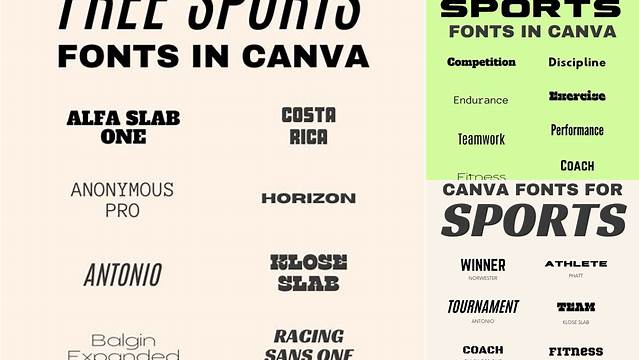
Best Canva Fonts For Sports Designs
Hey sports fanatics, are you ready to amp up your game with some killer designs? Whether you're crafting social media posts, flyers for your local team, or even merchandise, choosing the right fonts can make all the difference. Today, we're diving deep into the world of fonts on Canva for sports, exploring the best options to help you create eye-catching visuals that scream victory! Let's get started!
1. Top Canva Fonts for Sports Logos: Elevate Your Brand
Guys, when it comes to sports logos, your font choice is super important! It's like the handshake of your brand. It needs to be memorable and perfectly capture the spirit of your team or organization. Canva has a bunch of fantastic font options that can totally transform your logo game. Think about the vibe you're going for – are you aiming for something modern and sleek, or something classic and bold? For a modern look, consider fonts like 'Bebas Neue' or 'Montserrat'. These fonts are clean, easy to read, and give off a contemporary feel. They're perfect for teams wanting a professional and polished image. If you're leaning towards a more traditional or rugged style, check out 'Impact' or 'Oswald'. These fonts are strong and assertive, really making your logo pop. They work great for sports like football, basketball, and hockey. Remember, the key is to match the font with the personality of your team. A sleek font might not fit a team with a tough, gritty reputation. The right font helps you tell your team's story, so take your time and test out different options until you find the perfect fit. Don't be afraid to experiment with different weights and styles of the same font to fine-tune the look. And hey, keep in mind how the font will look at different sizes – your logo needs to be clear whether it's on a tiny social media avatar or a massive banner. Good luck!
2. Canva Fonts for Sports Teams: Finding the Perfect Match
Choosing the right fonts for your sports team's materials can be a fun challenge, right? When you're working with Canva, the possibilities are pretty much endless. You'll find fonts that bring the energy of the game to life, from the roar of the crowd to the thrill of victory! For a classic, sporty feel, you can't go wrong with fonts like 'College' or 'Varsity'. These fonts are specifically designed to evoke the spirit of collegiate sports, making them perfect for team jerseys, posters, and event announcements. They have that timeless, athletic vibe that everyone loves. If you're looking for something a bit more modern, consider fonts like 'Roboto' or 'Lato'. These are clean, versatile fonts that are super easy to read, even from a distance. This is crucial for things like scoreboards and team names on jerseys. To give your team a unique identity, play around with fonts that have distinct character. Think about fonts with a bold weight, or a slightly angled design. These can add a sense of movement and excitement to your designs. And hey, don't forget the importance of pairing fonts! Sometimes the best designs use a combination of two different fonts. One font for the main title or team name and another for the supporting text. This helps you create visual interest and hierarchy. When choosing the perfect font, remember to think about your team's color scheme. The font should stand out and be easy to read against the background colors you're using. Have fun with it and enjoy the creative process!
3. Best Canva Fonts for Sports Social Media Posts: Grab Attention
Alright, so you want your social media posts to be absolute slam dunks? You need fonts that grab attention and make your content shine! Canva has plenty of fonts that are perfect for making your sports-related posts pop. For headlines, go with something bold and eye-catching. Fonts like 'Anton' or 'Bebas Neue' are fantastic choices. They're strong, readable, and make your headlines stand out in the feed. They're great for announcements, game day previews, and victory celebrations. To create a sense of energy and movement, consider fonts with a slight slant or a dynamic feel. Fonts like 'Impact' or 'BankGothic' can add a sense of urgency and excitement. They are perfect for short, punchy captions and quotes that get your audience pumped. For the body of your posts, choose a font that's easy to read and doesn't distract from your message. 'Roboto' and 'Open Sans' are great options. They're clean, legible, and won't clutter your post. Try to experiment with font sizes to create a clear visual hierarchy. Use a larger font for headlines and a smaller font for the body text. This way, you can guide your audience's eyes and make sure they read the important info first. Don't forget to consider the overall look and feel of your social media accounts. Your fonts should align with your brand's style. If you want to give your content a consistent look, save your favorite fonts in your Canva brand kit so you can easily access them. Have fun and let your creativity run wild!
4. Canva Font Pairings for Sports Designs: Achieving Harmony
Okay, let's talk about creating visual harmony with font pairings. It's like choosing the perfect team-up for a dynamic duo! The goal is to combine different fonts that complement each other, creating a design that's both visually appealing and easy to read. A classic approach is to pair a strong, bold font with a simple, clean font. Think of it like a headline and a body text combo. You can use a font like 'Impact' or 'Oswald' for your headings and a font like 'Roboto' or 'Lato' for the body of your text. This creates contrast and makes your text easy to digest. Another great pairing involves using two fonts that are different but share a similar style. For example, you could choose two sans-serif fonts with slightly different weights or characteristics. This creates a cohesive design that doesn't feel chaotic. When you're making font pairings, make sure to test them out with a variety of content. See how they look with different headlines, body text, and captions. Also, consider the overall mood you're trying to create. A bold font paired with a script font can add a sense of playfulness, while a classic serif font paired with a clean sans-serif font can give off a professional feel. Lastly, remember to ensure your font pairings are easy to read. The goal is always to make your message clear, so choose fonts that enhance your content and make it easy for your audience to understand.
5. Canva Fonts for Sports Posters: Design Like a Pro
Time to get your poster design skills in tip-top shape! When designing posters for sports events, you want fonts that not only grab attention but also clearly convey important information. Make sure to go with fonts that are easy to read from a distance. Fonts like 'Oswald' or 'Bebas Neue' are great because they're bold, clear, and have great readability. For headlines, use a font that stands out. Think about fonts that are strong and impactful, like 'Impact'. You can also get creative and use fonts that reflect the sport itself. For example, for a football poster, you might use a font that feels rugged and powerful. For the body text, use a font that's easy to read, such as 'Roboto' or 'Open Sans'. Make sure the font size is appropriate for the distance viewers will be standing from the poster. Size matters! Also, remember to consider the poster's layout. A well-designed poster uses font pairings to create visual interest. Try using a bold font for your headlines and a cleaner font for the body of the text. This helps create a clear hierarchy and guides the viewer's eye. And hey, remember that your fonts must complement your team's colors and the overall design of your poster. Be consistent with your font choices. Save your favorite fonts in your Canva brand kit to make the design process even faster.
6. Canva Font Styles: Understanding Weights and Variations
Let's talk about font styles and how they can totally transform your sports designs! When we say font styles, we're talking about the different variations of the same font. These include things like font weights (bold, regular, light) and font styles (italic, condensed, expanded). The coolest thing is, using these different styles can help you emphasize key information and create visual interest in your designs. Font weights can make a huge difference! Bold fonts are perfect for headlines or important pieces of text. They grab attention and make your design feel dynamic. Regular fonts are great for the body of your text. They're easy to read and don't take away from the main message. Italic fonts add a touch of elegance and can be used to emphasize certain words or phrases. You can also use them for quotes or captions. Condensed or expanded fonts are also awesome for creating visual interest. Condensed fonts are great for saving space, while expanded fonts can be used to make a statement. When you choose font styles, consider how they match the overall design and the feeling you're trying to convey. A bold font can make your designs feel powerful, while a light font can make them feel more airy and modern. Practice experimenting with these font styles. Mix and match them to see what works best for your sports designs. Remember, the more you practice, the better you will become at using font styles to create awesome graphics!
7. Canva Fonts for Basketball Designs: Slam Dunk Choices
Time to dribble our way into some awesome fonts for basketball designs! Whether you're creating flyers, social media posts, or even merchandise, you'll need fonts that capture the energy and excitement of the game. For headlines, go with fonts that are bold, strong, and command attention. Fonts like 'Impact' or 'Bebas Neue' are perfect for this. They have a powerful presence and make your headlines pop. You can also explore fonts that have a slightly angled or stylized look. This can create a sense of movement and action, as if the ball is soaring through the air. Think about fonts like 'BankGothic' or 'College' to evoke the feeling of the court. To create a sense of excitement and energy, consider using a font that's a bit edgy or modern. Fonts with a condensed or italic look can really amp up the design. They make your posts or flyers feel dynamic and action-packed. When you're choosing fonts for basketball, think about your overall brand. Your fonts should align with the colors, style, and feel of your team. So, let your creativity shine, and see how you can use fonts to create a championship-worthy design!
8. Canva Fonts for Football Designs: Gridiron Greats
Let's huddle up and talk about some great fonts for football designs. When it comes to designing for football, you want fonts that feel strong, powerful, and reflect the grit of the game. The best fonts for football designs often have a bold and sturdy feel. Think about fonts like 'Impact' or 'Oswald'. These fonts have a strong presence and are easy to read from a distance, which is super important for banners or posters. You can also consider fonts that have a slightly blocky or condensed appearance. These fonts can give your designs a tough, rugged vibe, perfect for a sport as physical as football. To add a touch of visual interest, experiment with different font styles. Try using bold and italic variations to highlight important words or phrases. This adds a sense of excitement and can capture the attention of your audience. Remember that the font should match the tone of your message. If you are promoting a high-energy event, choose fonts that have a dynamic or action-oriented style. And if you want to give your designs a classic, traditional feel, try using serif fonts like 'Times New Roman' or 'Georgia'. These fonts are timeless and can bring a touch of elegance to your design!
9. Canva Fonts for Soccer Designs: Goal-Oriented Graphics
Are you ready to score some design goals with Canva fonts for soccer? Whether you're crafting social media content, flyers, or team merchandise, the right fonts can help you capture the energy and excitement of the beautiful game. When choosing fonts for soccer designs, think about the sport's fast-paced action and global appeal. For a modern, energetic feel, consider fonts like 'Bebas Neue' or 'Montserrat'. These fonts are clean, versatile, and easy to read, perfect for displaying team names and game details. If you are going for something more classic, try a font like 'Impact' or 'Oswald'. These fonts are strong and bold, making your design visually striking. To really make your soccer designs pop, think about using fonts with a bit of flair! For example, fonts that have a slightly angled or italicized style can create a sense of motion. This will make your posts feel dynamic. Don't forget the importance of legibility! Always choose fonts that are easy to read, even from a distance. Fonts that have a strong presence and are easy to understand are super important for posters or social media graphics. Using great fonts will help you make designs that capture the essence of the game!
10. Canva Fonts for Baseball Designs: Home Run Hitting Fonts
Let's step up to the plate and discuss some home-run-hitting fonts for baseball designs! When designing for baseball, you'll want fonts that are strong, classic, and capture the spirit of America's pastime. Fonts that are classic, bold, and easy to read are essential for baseball designs. Fonts like 'Impact' or 'Oswald' are perfect choices. They have a strong presence and are sure to catch the viewer's eye. You can also consider fonts that have a slightly vintage or retro feel, adding a nostalgic touch to your designs. Fonts like 'College' or 'Varsity' can instantly transport viewers back to the golden age of baseball. In terms of style, try using a font that complements the team's colors and logo. Using colors that represent your team is an easy way to improve designs. Don't be afraid to experiment with different weights and styles of the same font to create an exciting design. A bold font for a title can be combined with a slightly lighter version for the body text. This will help create a great design. Most importantly, make sure the font is readable. Nothing is worse than a font that's difficult to understand, so be sure to go with fonts that get the point across!
11. Canva Fonts for Hockey Designs: Slap Shot Style
Alright, hockey fans, let's get ready to drop the puck and design some awesome graphics! When it comes to hockey designs, you want fonts that feel tough, energetic, and reflect the sport's intensity. Choosing fonts for hockey designs means capturing the sport's energy and impact. For a bold, powerful look, try fonts like 'Impact' or 'Bebas Neue'. These fonts are strong and will catch everyone's eye. For a more edgy feel, you can explore fonts with a slightly angular or condensed style. Fonts like 'BankGothic' can create that sense of movement. Think about combining font styles to create visual interest. A bold font can work great for headlines and a thinner font for supporting text. Remember, readability is key, so choose fonts that are easy to understand from a distance. It will ensure your message is clear. Also, try to use fonts that match your team's colors. These fonts will make your team stand out and give it its own identity. Go out there and create designs that are worthy of the Stanley Cup!
12. Canva Fonts for Esports Designs: Digital Domination
Hey gamers, let's get our digital design game on point! When it comes to designing for esports, you need fonts that are modern, futuristic, and capture the excitement of the competitive gaming world. For a sleek, modern feel, consider fonts like 'Montserrat' or 'Lato'. They are easy to read and look great on screens. Think about fonts that have a techy vibe to them. Fonts like 'Roboto Mono' or 'Audiowide' can give your designs a futuristic look. Using fonts that are a bit edgy or bold will also make your designs stand out. When it comes to esports design, you have to capture the dynamic nature of the game. Using fonts that have a dynamic, modern feel can help capture that. Also, when choosing fonts, don't forget to consider your target audience. Use fonts that will resonate with the esports community. Make sure your fonts are easy to read and look great on different devices. You want to get your message across! So, get creative, think outside the box, and create designs that will dominate the digital arena!
13. Canva Fonts for Fitness Designs: Get Motivated
Let's flex our design muscles and talk about fonts for fitness! If you're creating designs for fitness, you'll want fonts that are energetic, motivational, and inspire action. For headlines, choose fonts that are bold and strong. Fonts like 'Impact' or 'Bebas Neue' can grab attention and make your message pop! Think about using fonts that evoke a sense of movement and energy. A font with a slightly angled or italicized style can give a dynamic feel, making people want to get moving. Consider fonts with a modern, clean look, such as 'Roboto' or 'Lato'. These fonts are great for body text and are easy to read. Remember to consider the colors of your designs. The fonts should complement your color scheme, and ensure that the text is easy to read. When creating content for fitness, try to stay consistent with your branding to make it easy to identify. Most importantly, your fonts must inspire action. Ensure that your designs motivate your audience to get up, get moving, and crush their fitness goals!
14. Canva Fonts for Tournament Flyers: Announce the Competition
Time to announce the competition with some killer fonts! When designing tournament flyers, you want fonts that are clear, attention-grabbing, and communicate all the key details. For headlines, use fonts that are bold and easy to read. Fonts like 'Impact' or 'Bebas Neue' are great for making sure your headline gets noticed! You can also consider using fonts that reflect the sport. If you are doing a soccer tournament, you can try a font that has the shape of a ball. If you're going for a classic look, try a font like 'Oswald'. It has a strong presence and is sure to grab the reader's eye. Make sure that the font clearly conveys key information, like the tournament name, date, location, and entry details. To create a clear design, try to use font pairings. For instance, a bold font for the main title and a cleaner font for the rest of the information. Remember, it is important to create easy-to-read and visually appealing flyers, so people get all the details they need. Use colors that complement your design and stay consistent with your brand's visual identity. It is important to use fonts to capture the attention of potential participants and get them excited for the tournament!
15. Canva Fonts for Team Branding: Create a Unique Identity
Let's talk about branding! To build a strong team, you have to create a brand. When designing for team branding, your font choice is crucial. Fonts create the team's visual identity. A well-chosen font can make a team stand out and create a memorable brand. For a classic, sporty feel, think about fonts like 'College' or 'Varsity'. These fonts evoke a sense of tradition and are perfect for jerseys and team logos. If you're going for a modern look, use fonts like 'Montserrat' or 'Roboto'. They are clean, versatile, and can give your team a professional edge. Remember to think about your team's values and the image you want to project. Your font choice should align with your team's personality. Try using fonts that align with your team's colors. Consistency is key! Save your favorite fonts in your brand kit so you can always get to them. The font you use will shape the team's identity. Make the most of it!
16. Choosing Fonts for Specific Sports: Tailoring Your Designs
Let's dive into how to tailor your designs to the specific sports you're working with. The best font choice for each sport will depend on its unique characteristics. When designing for sports like football and hockey, you want fonts that feel strong and powerful. Consider using fonts like 'Impact' or 'Bebas Neue' for a rugged and dynamic look. If you are designing for baseball, think about a more classic and timeless feel. Fonts like 'College' or 'Varsity' are great options. If you're working on designs for soccer, the fonts should convey the sport's fast-paced action and global appeal. For soccer designs, consider fonts like 'Bebas Neue' or 'Montserrat'. Using fonts to convey the style of each sport is important. Be sure to use a different style for each sport to get the most out of your designs.
17. Typography Tips for Sports Designs: Making Your Text Shine
Let's get into some top-notch typography tips to make your sports designs shine! To begin, you have to focus on readability. The font you choose should be easy to read, even from a distance. If you're creating banners or social media posts, this is incredibly important. Make sure the font size is appropriate for the design. Use larger fonts for titles and headlines and smaller fonts for body text. Try experimenting with different font weights and styles to create visual interest. For example, use a bold font for headlines and a lighter font for body text. When choosing fonts, consider the overall design. It should complement your team's colors. Also, remember to use font pairings to create a dynamic design. Use one font for the headlines and another for the supporting text. And finally, remember the layout. Leave plenty of space around your text. Good typography is super important, and these tips can help you create fantastic designs!
18. Font Licensing and Canva: Understanding the Rules
When you're choosing fonts on Canva, it's super important to understand font licensing. Canva generally offers a wide selection of fonts for commercial use, which means you can use them in your sports designs without worrying about extra fees. However, it is always a good idea to double-check the licensing terms for each font. Canva may also have premium fonts that require a subscription or a one-time purchase for commercial use. Always read the fine print and make sure you understand the rules before using a font in your designs. If you are using Canva for commercial purposes, make sure the license allows you to use the font in your designs. Also, be aware that the rules can change, so it is a good idea to check the Canva licensing guidelines regularly. That way, you can be sure you're using fonts legally and without any problems!
19. Accessing and Installing Custom Fonts in Canva: Level Up
Ready to take your designs to the next level? You can access and install custom fonts in Canva. This opens up a world of possibilities! To start, you'll need a Canva Pro subscription, which unlocks access to custom font uploads. After that, you'll need to download the font files from the font's source. The most common formats are TTF (TrueType Font) and OTF (OpenType Font). Once you have the font files, go to the Canva brand kit and upload the font. If you use the brand kit, the font is available for all your designs. After that, you can start using your custom font in your designs. When you upload and install custom fonts, you can give your brand a unique personality. This will help your designs stand out from the crowd. Now, it's time to unleash your creativity and design some amazing graphics!
20. Best Practices for Font Usage: Avoiding Common Mistakes
To avoid common mistakes and get the most out of your fonts, consider these best practices. Avoid using too many fonts. Stick to a maximum of two or three different fonts to avoid creating a cluttered design. Also, make sure your font pairings are clear and complementary. Choose fonts that work well together and create visual harmony. Make sure your text is readable! Always make sure the font is easy to read, especially from a distance. Consider the color and background of your text and font to ensure readability. Don't forget to pay attention to the font size and spacing. This will help make sure your text is easy to understand. Following these best practices will help you get the most out of your designs.
21. Font Size and Readability in Sports Designs: Making it Clear
Let's talk about font size and readability in your sports designs. Remember, your designs need to be easy to understand. The size of your fonts can have a massive impact on readability! When you are choosing font sizes, think about the context of your design. If you're making a poster for a sports event, it's important to use a large enough font size so the key information is easy to see from a distance. Make sure to use different font sizes to create a clear visual hierarchy. Use a larger font size for headlines and a smaller font size for body text. This helps guide the viewer's eye. To ensure readability, you should also think about the font's weight and style. Bold fonts and clear font styles are often easier to read than thin or decorative fonts. Always test your designs by viewing them from different distances to ensure that your text is readable! These tips will help you create designs that are both visually appealing and easy to understand.
22. Using Font Colors Effectively: Creating Visual Impact
Let's talk about how to use font colors effectively to create a visual impact! The color of your font is a crucial element in your design. The right color can capture attention and convey your team's brand. When choosing your font color, think about your team's colors! The color should align with your team's brand. When designing, make sure your font color contrasts with the background. A good contrast will improve readability and make your text stand out. Using color to emphasize important information can also be a great idea. You can use a different color for your team's name and game details. Be sure to use a limited color palette. This can help create a harmonious design that will make your text pop. These tips will help you create visually stunning designs that are easy to read!
23. Combining Fonts with Images and Graphics: A Complete Design
Let's explore the art of combining fonts with images and graphics for a complete design! When you're creating sports designs, the combination of fonts, images, and graphics is crucial to create an engaging visual. First, make sure your chosen font complements your images. You can select fonts that create a sense of the images. Then, think about creating a balanced design. Use fonts, images, and graphics to create a visual that is well-balanced. It is important to create a clear visual hierarchy. You can do this by using different font sizes, weights, and colors. The aim is to make sure that important information is the first thing people see. Your ultimate goal is to create designs that work. So be sure to make sure your design's message is clear. Use fonts, images, and graphics that work together to make your designs stand out.
24. Fonts and Accessibility: Designing for Everyone
Let's talk about fonts and accessibility, meaning making sure your designs are usable for everyone, including people with disabilities. Accessibility is super important in design! It helps you create designs that are inclusive and easy to understand. When choosing fonts, always choose fonts that are easy to read. The font should be clear and use a suitable font size, and it shouldn't distract from the message. When using color, ensure there is sufficient contrast between the font color and the background. Use a color contrast checker to make sure the contrast meets accessibility standards. Consider using alternative text for images. Include descriptions of the images so that people with visual impairments can understand the content. Also, ensure your design has a clear visual hierarchy. This makes it easier for everyone to understand the key information. If you keep these tips in mind, you'll be able to create designs that work for everyone.
25. Font Trends in Sports Design: Staying Current
Let's dive into the exciting world of font trends in sports design! Staying current with the latest trends can keep your designs fresh and engaging. Currently, there is an increase in the use of bold and expressive fonts. Designers are using these fonts to grab attention and create a strong visual impact. Also, the use of vintage and retro fonts has become popular. These fonts add a nostalgic feel to your designs. Another trend is the use of customized fonts. These fonts add a personal touch. Finally, the use of dynamic and playful fonts is growing. These fonts create a feeling of energy. It's important to experiment with different fonts to see which styles work for your specific design. Be sure to study design trends to stay up-to-date with what's popular. The more you're aware of trends, the easier it will be to create great designs.
26. Common Mistakes to Avoid with Fonts: Learn From Others
Let's get into the common mistakes to avoid when choosing fonts. First, don't use too many fonts! This can make your design look cluttered and confusing. Try to stick to a maximum of two or three different fonts. Second, make sure your fonts are readable. Choose fonts that are easy to read from a distance. Third, don't ignore the importance of font pairings! Be sure to use complementary fonts. Next, always consider the colors and backgrounds of your fonts. Make sure your text is easy to read. Also, make sure your fonts align with your brand. Finally, be sure to practice and get feedback. This will make you a better designer. If you avoid these mistakes, you will improve your designs!
27. Tips for Creating a Consistent Brand Style: Font Edition
Creating a consistent brand style is crucial for building brand recognition. Font choice plays a huge role! To build a consistent brand, be sure to choose a few fonts that align with your brand's personality. Use the same fonts across all of your designs. Save your fonts in your Canva brand kit. That way, you can easily get to your brand's fonts. When using the fonts, make sure they match your brand's colors. It is important to stay consistent. If you use consistent fonts, your audience will start to recognize your brand. This will improve brand awareness. By using a consistent brand style, you can create a professional and memorable brand that will stand out in the world of sports!
28. Where to Find Inspiration for Sports Fonts: Get Creative
Need some inspiration for your sports fonts? No problem! There are plenty of places you can find it! Start by checking out sports team logos and branding. Analyze the font choices of successful teams to get ideas for your own. Look at sports apparel and merchandise. These designs often showcase great font usage. Also, explore social media for design ideas. You can find many design ideas by scrolling through social media. Look at websites like Behance or Dribbble for design inspiration. You'll find designers creating cool designs with many different fonts. And finally, try to look at what other designers are doing. By exploring different designs, you will start to build an eye for fonts! Finding design inspiration is super important! With a little bit of effort, you can find the perfect font for your sports designs!
29. Evaluating Font Choices: Making the Right Decision
Evaluating font choices is super important to ensure your designs work! Before you choose a font, think about your design's purpose. What message are you trying to communicate? Make sure that the font you choose matches the vibe of your message. Then, assess the font's readability. Will the font be easy to read from a distance? Remember, some fonts are better for headlines, while others are great for body text. Test your font choices by putting them into your designs. Take a look at your designs and ensure the font and overall design work together. Ask for feedback from others. Getting feedback will help you see how the fonts appear to others. Using these steps will help you choose the perfect fonts!
30. Canva Font Resources and Tutorials: Mastering the Craft
Ready to master the art of Canva fonts? There are many resources and tutorials that will help you master the craft! Canva itself offers many great tutorials. You can use Canva's blog, which offers many design tutorials. There are also many design courses on platforms like Udemy and Skillshare. You can learn from experienced designers, and they will help you learn the ropes. Another great resource is YouTube. You can find tutorials on pretty much anything on YouTube! Also, don't forget to check out Canva's community. The Canva community has many designers who are always willing to help. By using these resources and tutorials, you will become a pro in no time! Have fun, and keep creating fantastic designs!